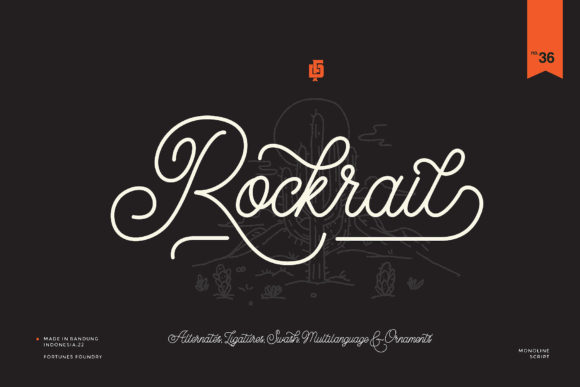
Rocktrail Script: A Timeless Font for Creative Expression
Fonts play a crucial role in visual communication, and Rocktrail Script stands out as a unique option for those looking to add a touch of elegance and nostalgia to their designs. This vintage-styled and delicate script font is designed to evoke a sense of charm and sophistication, making it an excellent choice for a wide range of creative projects.
The Charm of Rocktrail Script
Rocktrail Script is more than just a font; it's an artistic expression that brings a personal touch to any design. Its flowing curves and subtle variations in stroke width give it a hand-written feel, which can make text appear more natural and engaging. Whether you're creating a logo, designing a t-shirt, or working on a branding project, this font can help convey a message with grace and personality.
One of the key features of Rocktrail Script is its versatility. It works well in both digital and print formats, making it suitable for various applications such as web design, packaging, stationery, and even social media graphics. The font's delicate nature allows it to blend seamlessly into different color schemes and backgrounds without overwhelming the overall design.
Where Can You Use Rocktrail Script?
The beauty of Rocktrail Script lies in its adaptability. Here are some common use cases where this font shines:
- Logos and Branding: The font's elegant appearance makes it ideal for logos that need to exude a classic or retro vibe. It can be used for brand names, taglines, or other elements that require a touch of sophistication.
- T-Shirt Printing: When designing t-shirts, especially for niche markets or boutique brands, Rocktrail Script can add a unique flair to the typography. It pairs well with minimalist designs or intricate patterns.
- Creative Products: From greeting cards to custom calendars, Rocktrail Script can enhance the aesthetic appeal of various creative products. Its vintage style complements themes like weddings, birthdays, or holiday celebrations.
- Web Design: In web design, this font can be used for headings, call-to-action buttons, or decorative elements. However, due to its script nature, it's best reserved for non-body text to maintain readability.
Who Benefits from Rocktrail Script?
Rocktrail Script is particularly appealing to a variety of users, including:
- Designers and Artists: Those who work in graphic design, illustration, or digital art will find this font valuable for adding a distinctive character to their projects.
- Business Owners: Entrepreneurs looking to establish a unique brand identity can benefit from using Rocktrail Script in their logos, marketing materials, or website content.
- Content Creators: Bloggers, influencers, and social media managers can use this font to create visually appealing posts, banners, or promotional materials.
- Students and Educators: Teachers and students involved in creative writing, art, or design courses may find this font useful for presentations, posters, or school projects.
Its ability to convey emotion and personality makes it a popular choice among professionals and hobbyists alike. However, it's important to consider the context in which the font will be used to ensure it remains legible and effective.
Strengths and Considerations
While Rocktrail Script has many strengths, there are also a few considerations to keep in mind when using it:
- Strengths: The font's vintage style adds a sense of nostalgia and charm, making it stand out from more modern or generic fonts. Its delicate lines and organic feel can create a warm and inviting atmosphere in any design.
- Considerations: Due to its script nature, Rocktrail Script may not be the best choice for long paragraphs of text. It's more suitable for short phrases, headlines, or decorative elements. Additionally, it may not render consistently across all devices or platforms, so it's essential to test it thoroughly before finalizing a design.
Despite these limitations, Rocktrail Script remains a valuable tool for designers who want to add a unique and timeless quality to their work. Its versatility and aesthetic appeal make it a great addition to any designer's toolkit.
Real-World Applications of Rocktrail Script
Let's explore how Rocktrail Script can be applied in real-world scenarios:
Example 1: Logo Design
Imagine a boutique clothing store that wants to create a logo that reflects its vintage-inspired collection. By incorporating Rocktrail Script into the logo, the brand can communicate a sense of elegance and nostalgia while maintaining a modern edge.
Example 2: Wedding Invitations
For a wedding invitation, Rocktrail Script can be used to write the couple's names, the event details, or even the RSVP information. The font's delicate and romantic feel aligns perfectly with the theme of a special occasion.
Example 3: Social Media Graphics
When creating social media posts or promotional graphics, Rocktrail Script can be used to highlight key messages or calls to action. Its eye-catching style can help draw attention to important information while maintaining a cohesive visual identity.
In conclusion, Rocktrail Script offers a unique blend of elegance and versatility that can elevate a wide range of creative projects. Whether you're a designer, business owner, or content creator, this font provides an opportunity to express individuality and charm in your work. With thoughtful consideration and proper application, Rocktrail Script can become a valuable asset in your design repertoire.